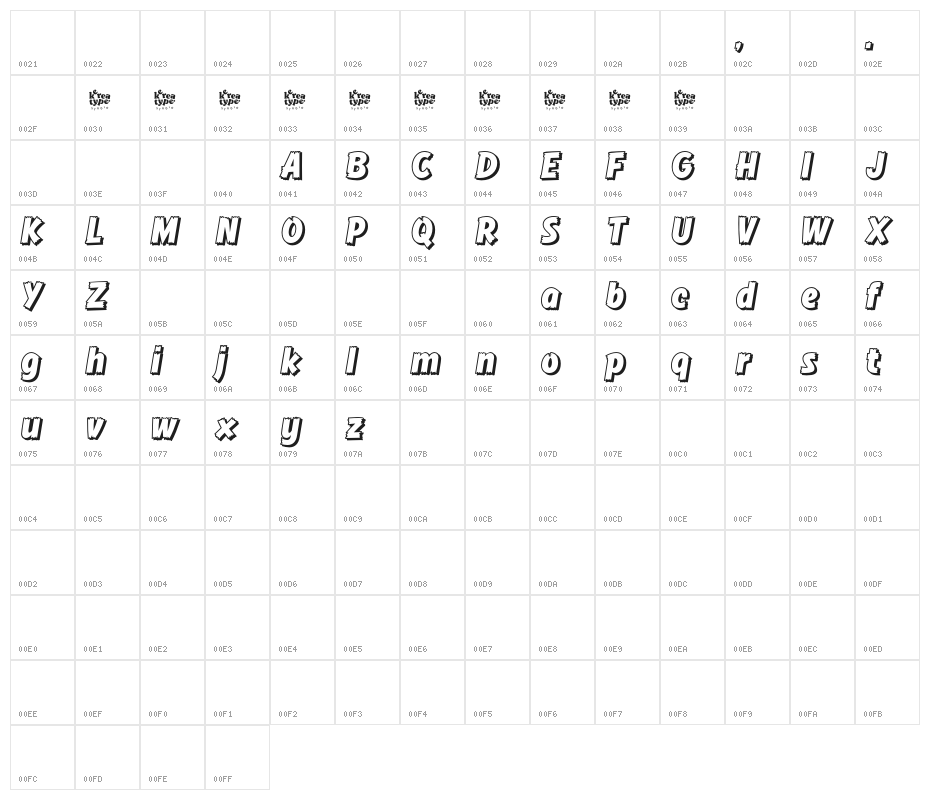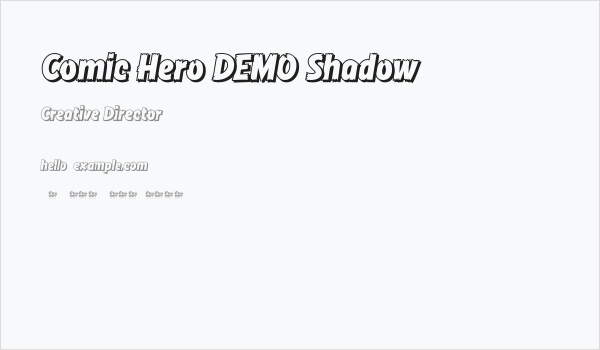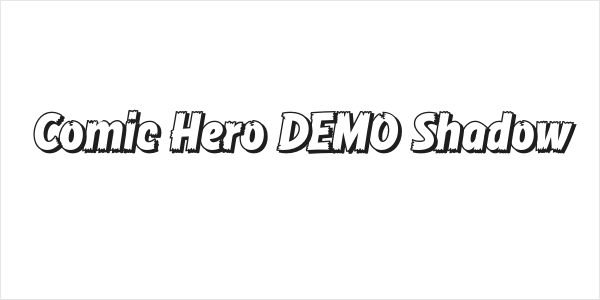
Comic Hero DEMO Shadow Font
Comic Hero DEMO Shadow Description
This font features a bold, dynamic style with a strong comic book influence. Each character is outlined with a shadow effect, giving it a three-dimensional appearance. The uppercase and lowercase letters maintain a consistent, playful aesthetic, making it ideal for eye-catching designs. The font's energetic and bold nature is perfect for projects that require a sense of fun and excitement. The shadow effect adds depth, enhancing its visual impact. This font is particularly suitable for creative projects that aim to capture attention and convey a lively, animated feel.
| Overall Style | Comic, Playful, Dynamic |
| Use Case | Headlines, Posters, Logos |
| Proposed Projects | Ideal for comic book covers, children's book titles, playful posters, and graphic novels. |